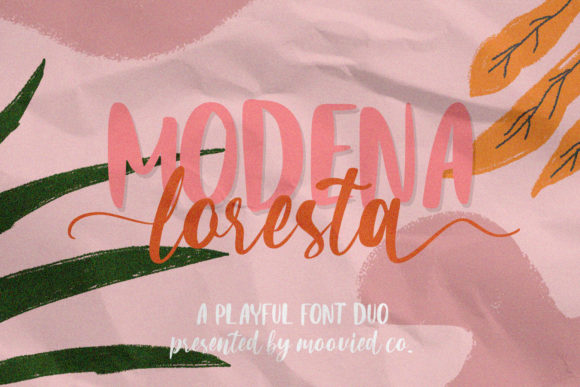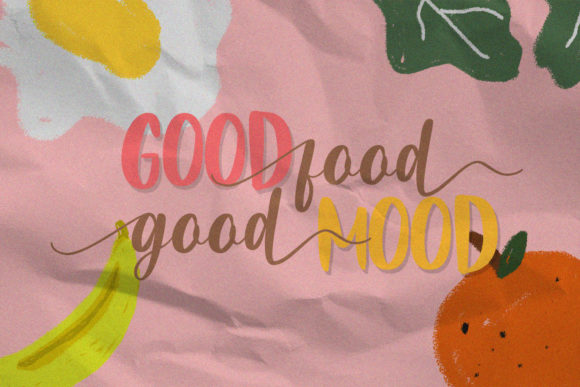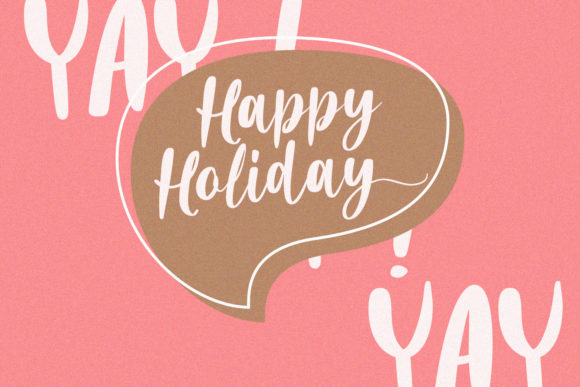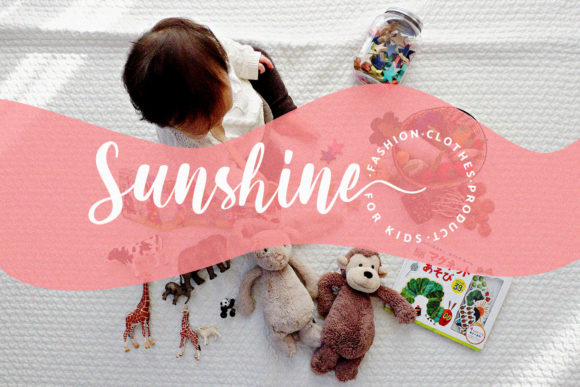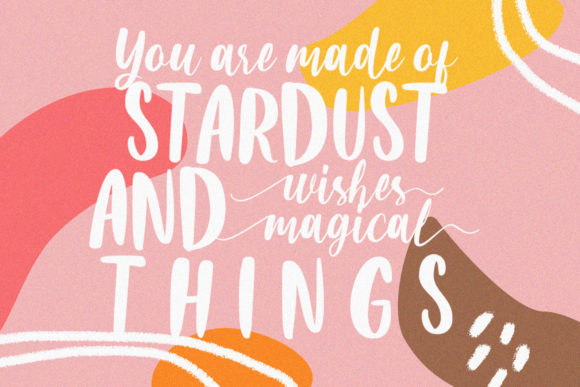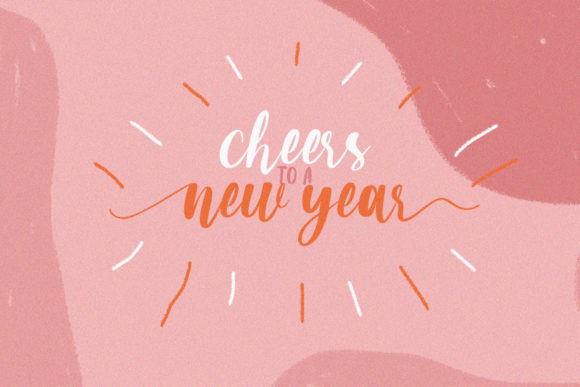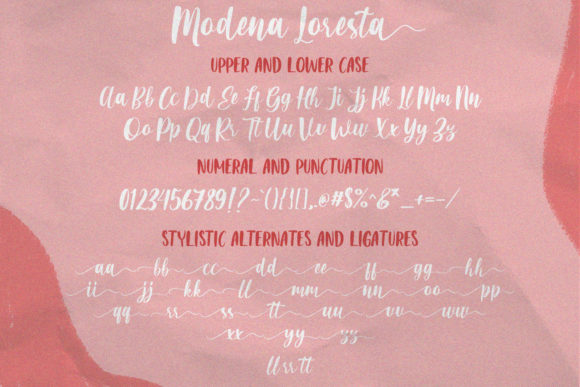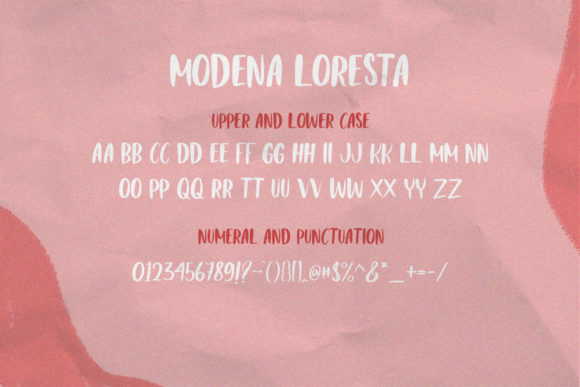
Modena Loresta Duo Font
About Modena Loresta Duo Font
Modena Loresta Duo is an amazing match! The script style matches perfectly with the sans serif style. Combining these two fonts on your next design will give a modern and cute feel.